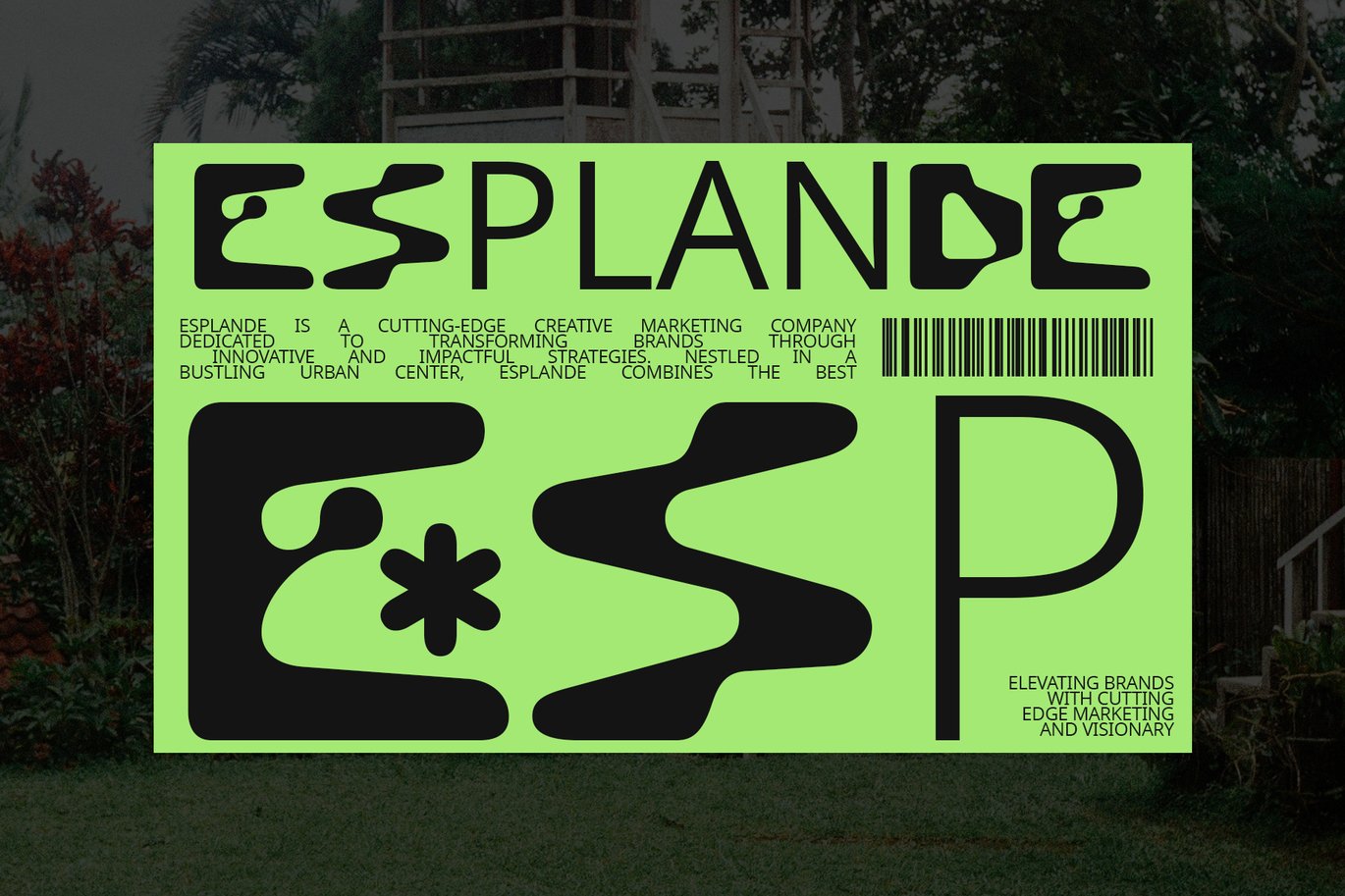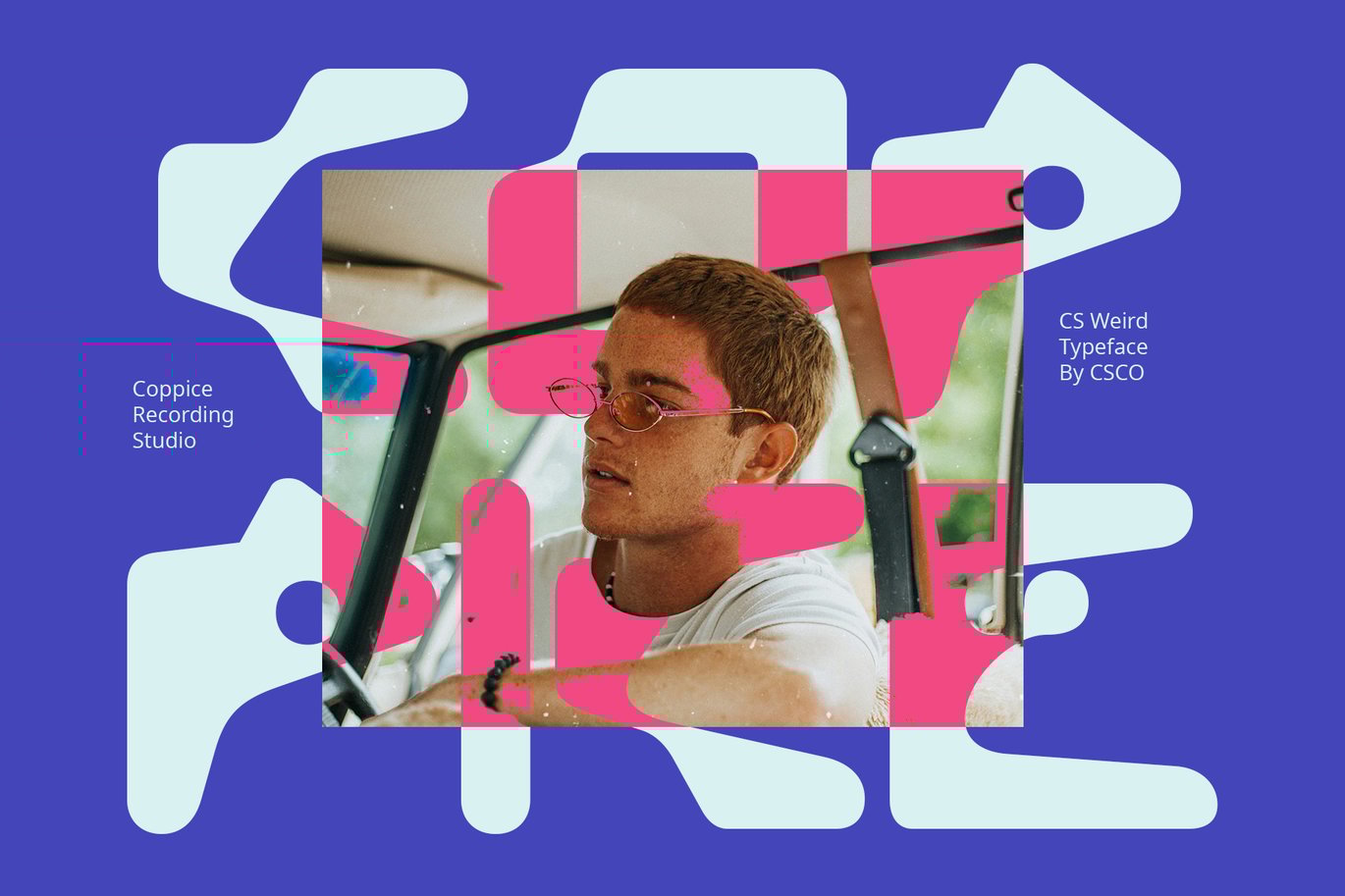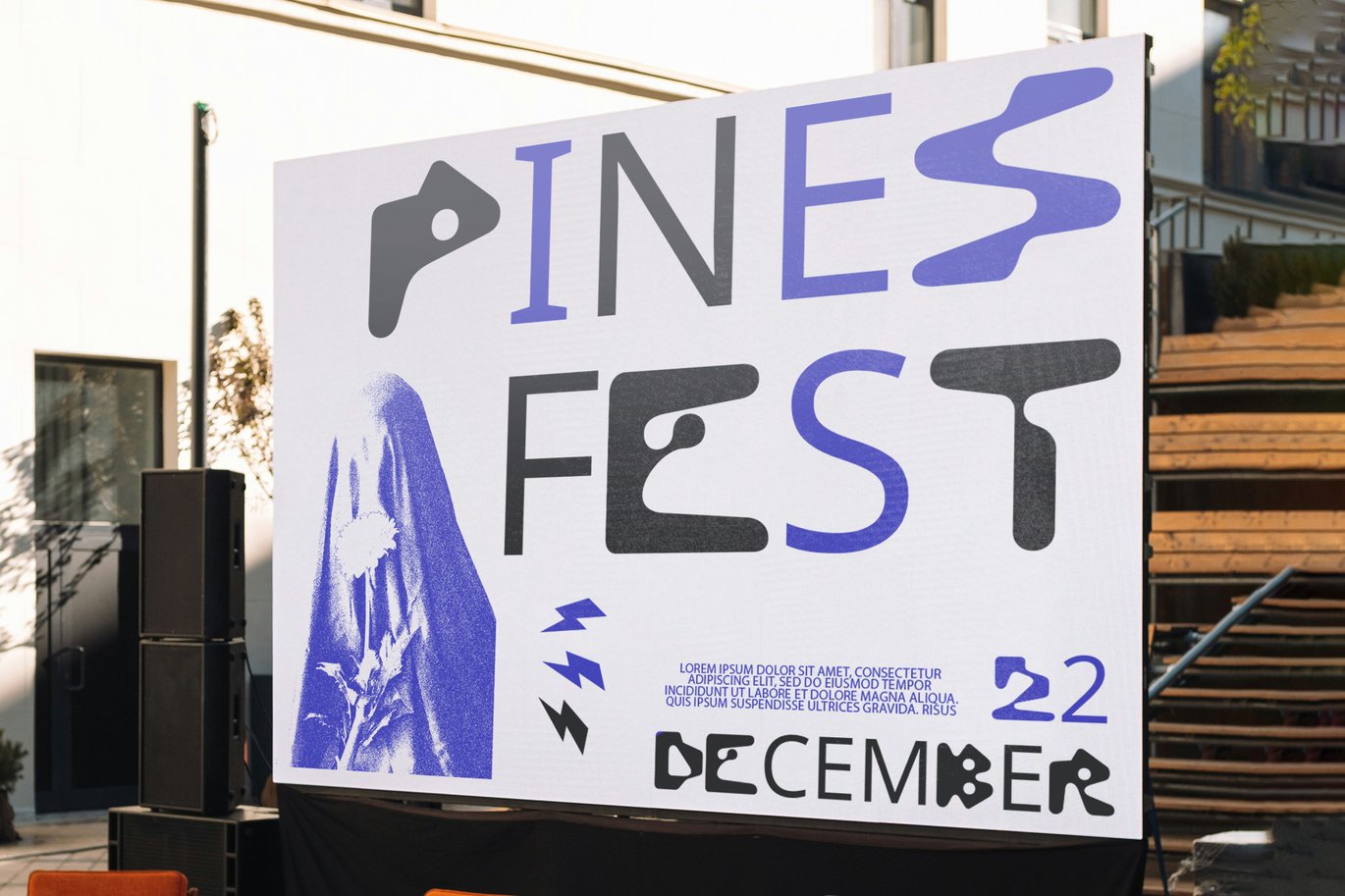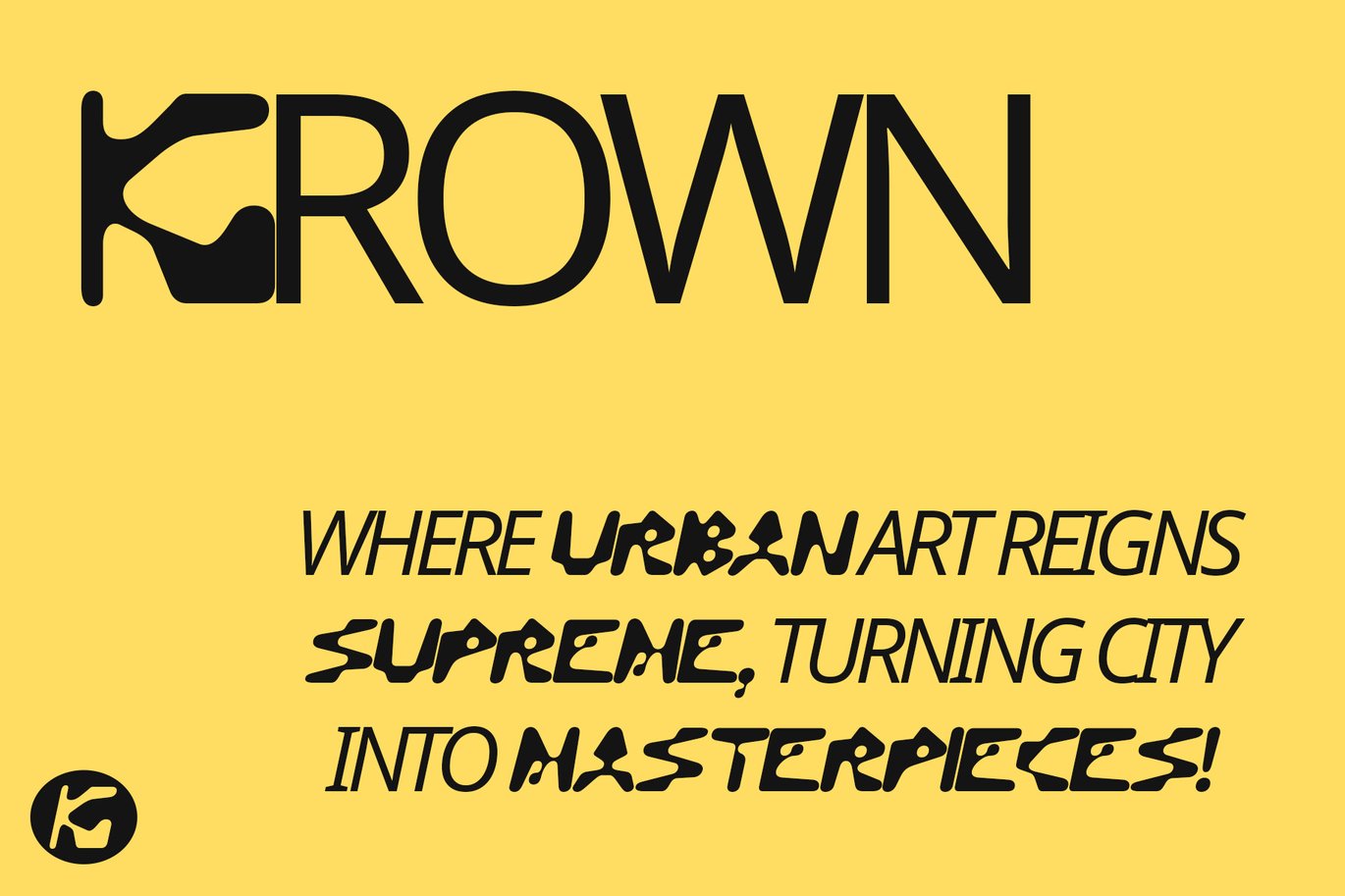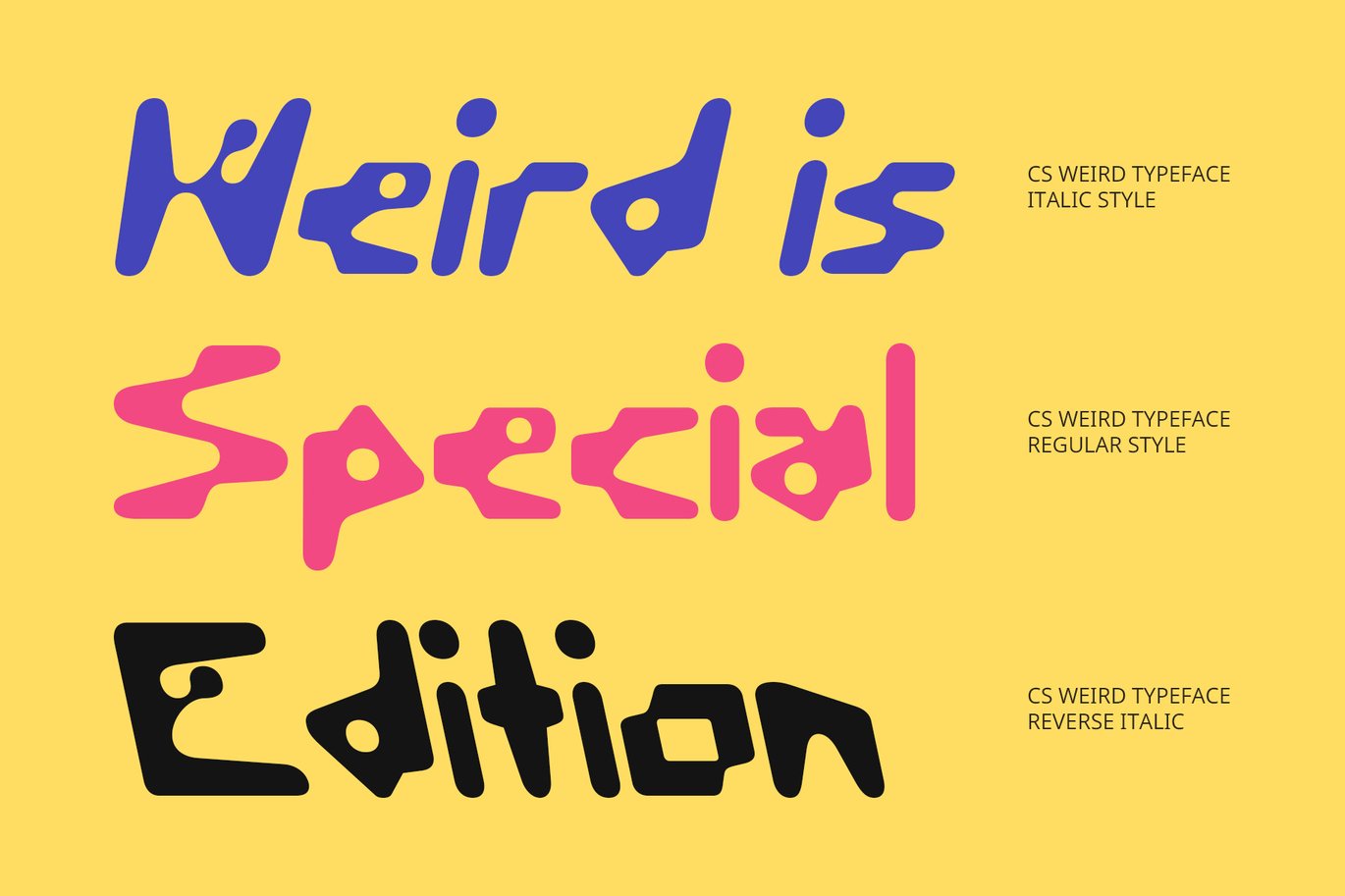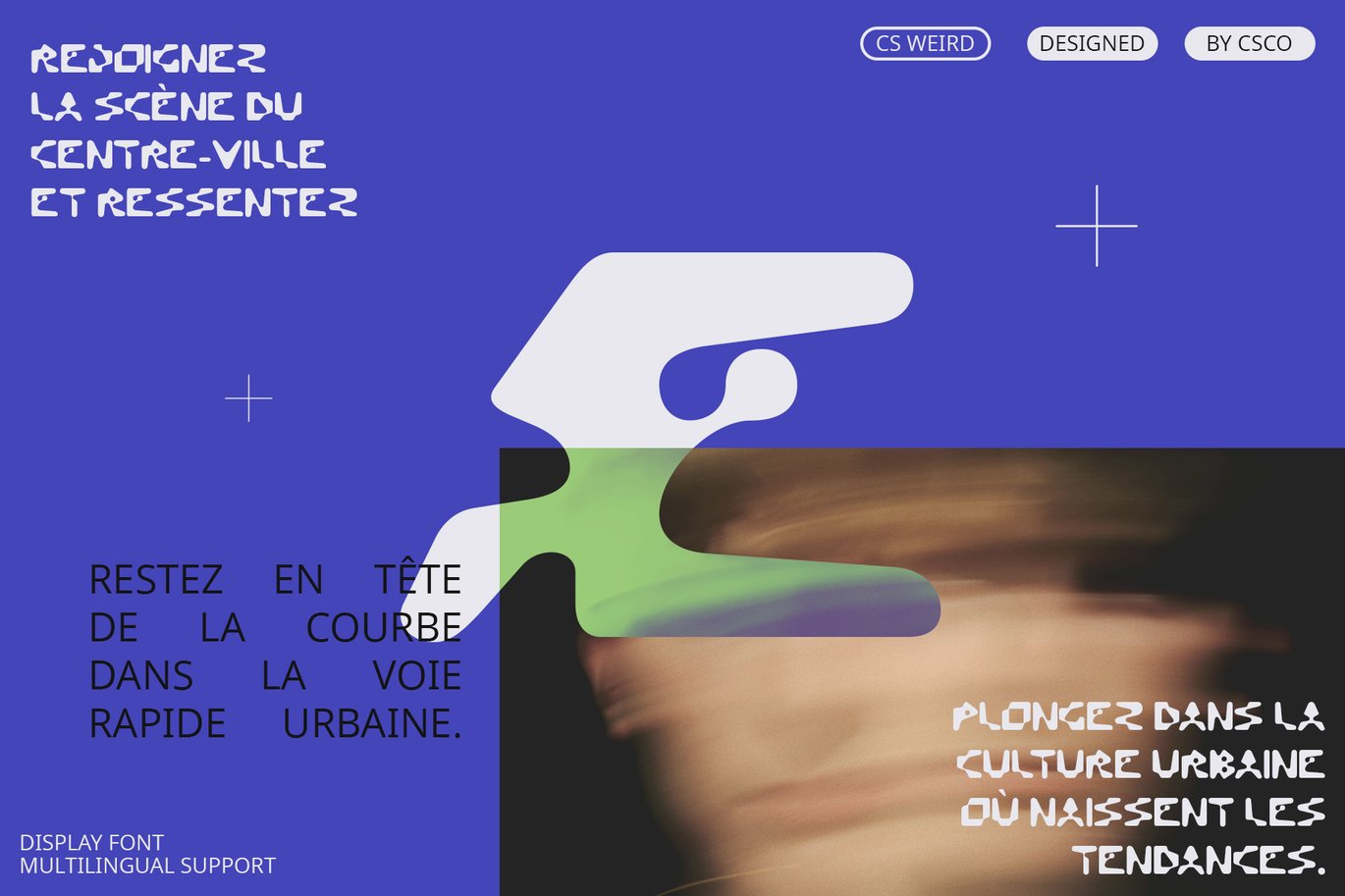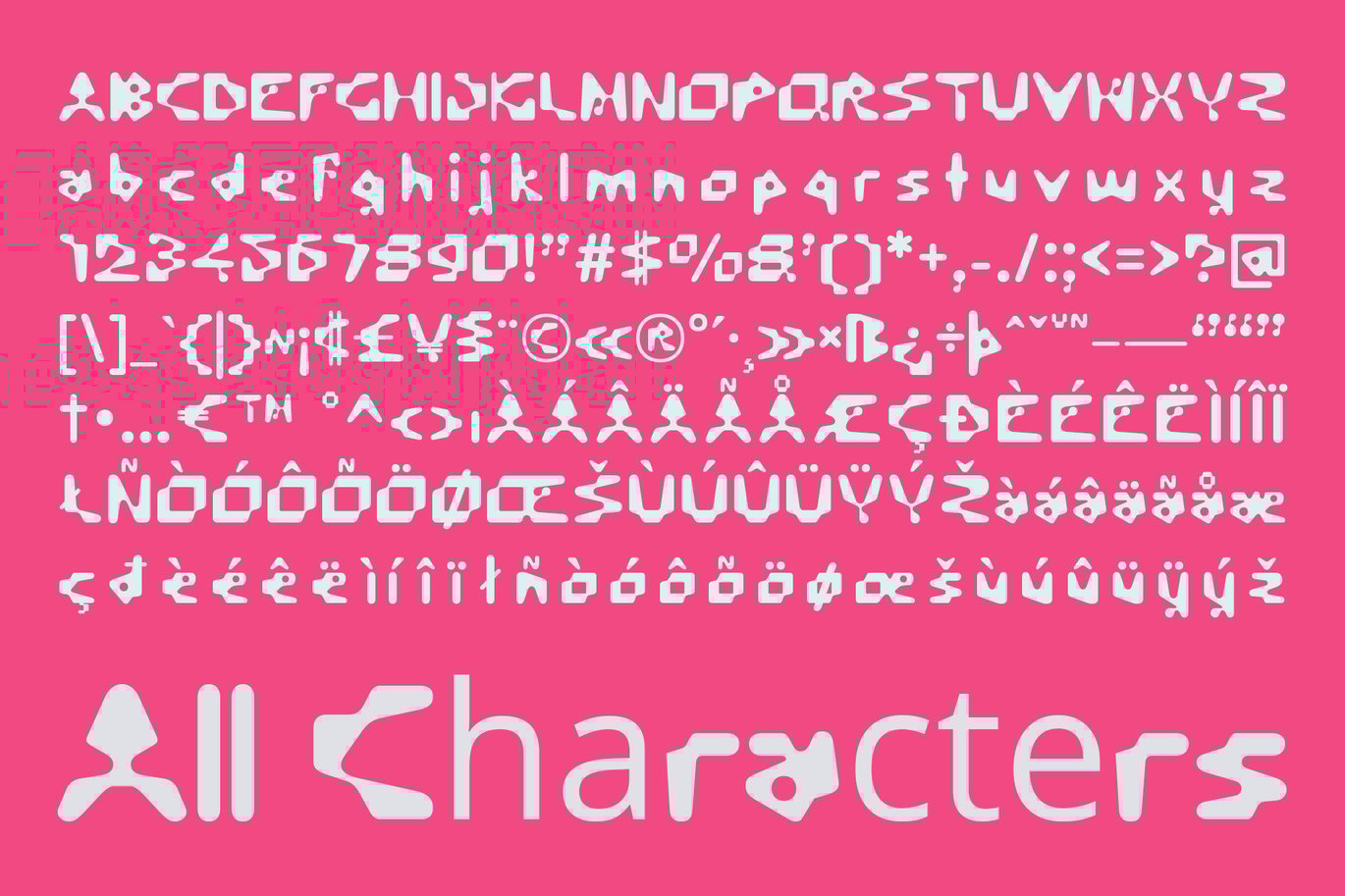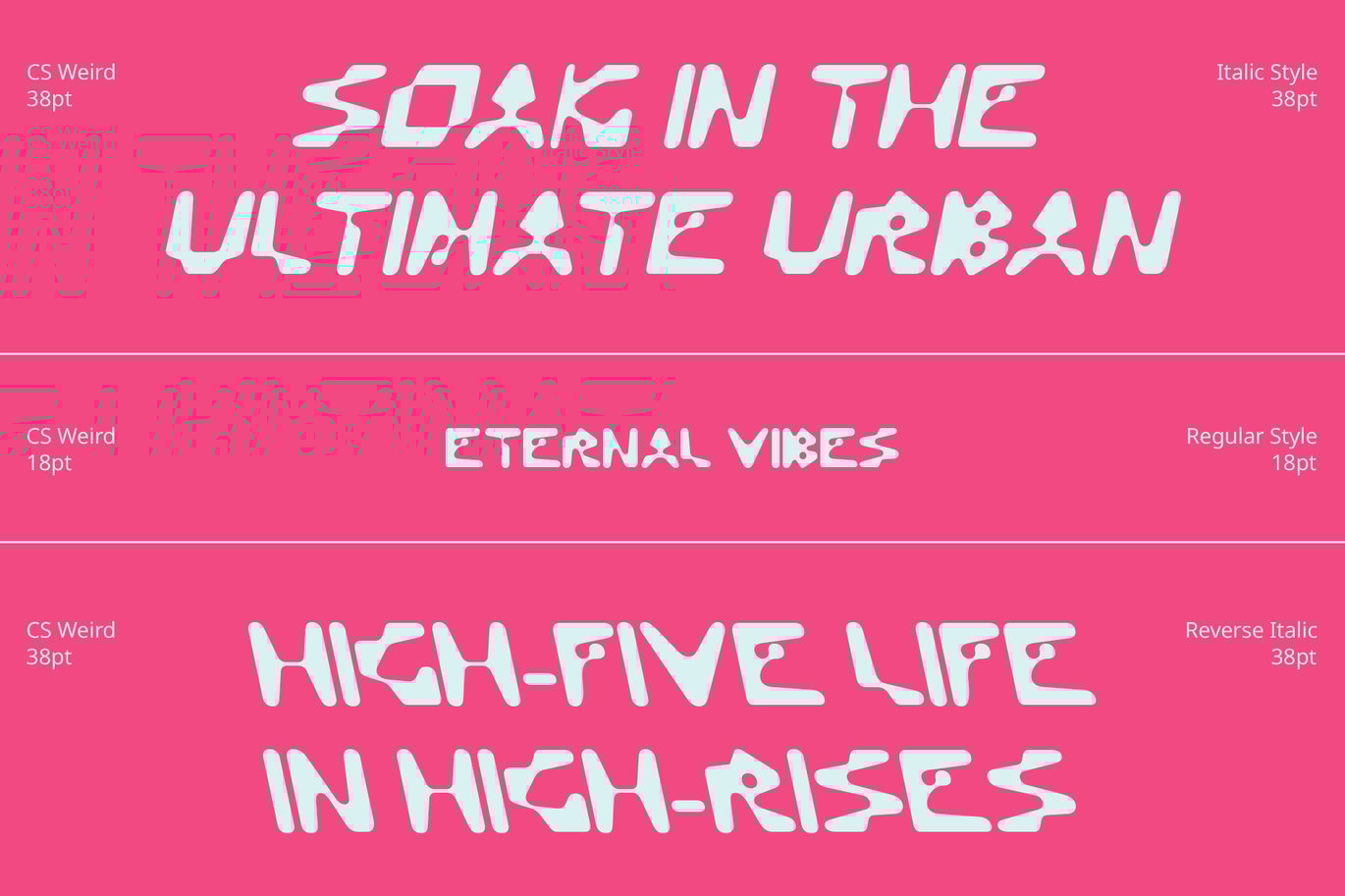
CS Weird – Display Font
CS Weird – Display Font: Unconventional Flair with a Funky Twist
Unconventional and Funky Design
CS Weird is an experimental display font that embraces unconventional and funky designs. Its unusual shapes and quirky aesthetics set it apart, adding a distinctive flair to any creative project.
Unique Flair for Creative Projects
With its bold and unexpected design elements, CS Weird stands out, making it perfect for eye-catching posters, avant-garde branding, and artistic layouts. Its vibrant and unconventional style ensures that your designs capture attention and leave a lasting impression.
Ideal for Eye-Catching Designs
CS Weird brings an unexpected and vibrant touch to your projects. Whether used for standout promotional materials, unique branding, or artistic compositions, this font injects a dose of creativity and individuality into your work.
Embrace the Unconventional
Add a unique flair to your designs with CS Weird. This experimental display font is perfect for those looking to push the boundaries of traditional typography and create truly eye-catching visuals.